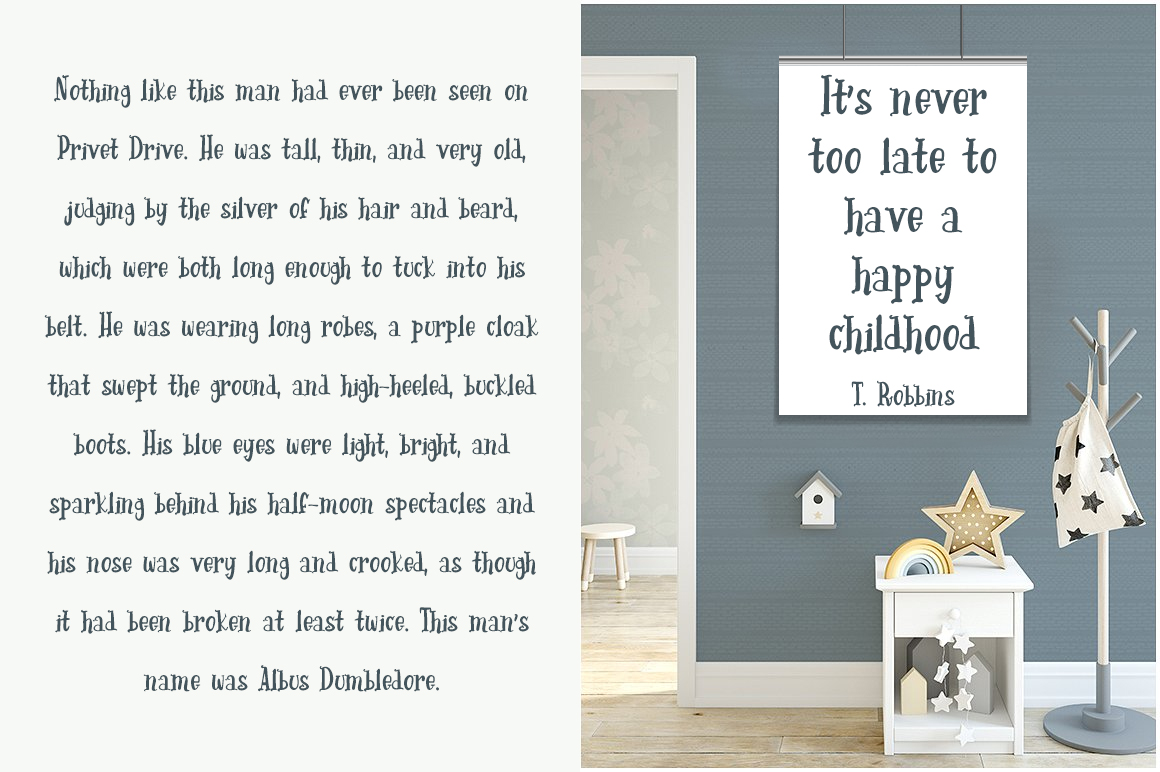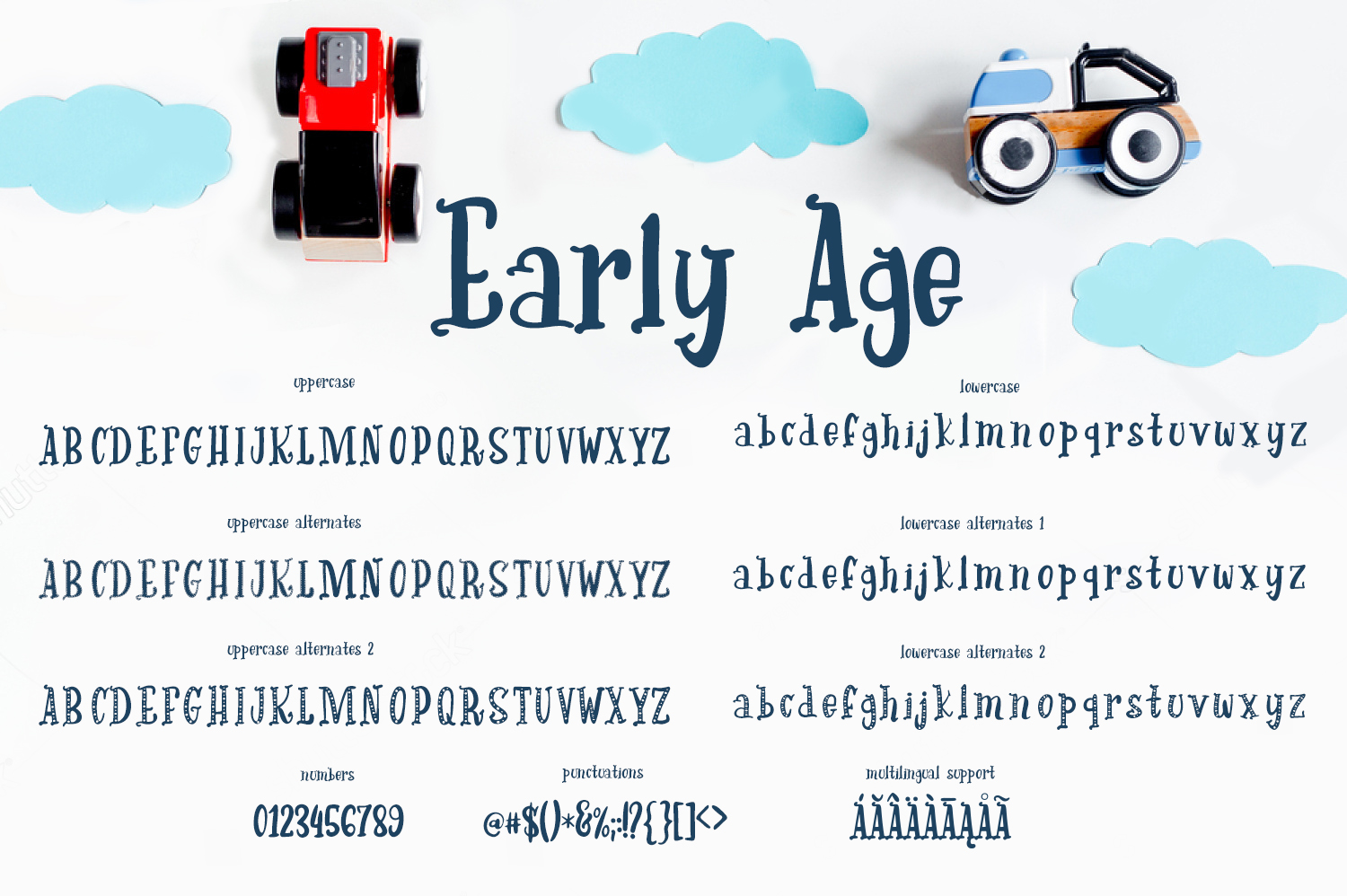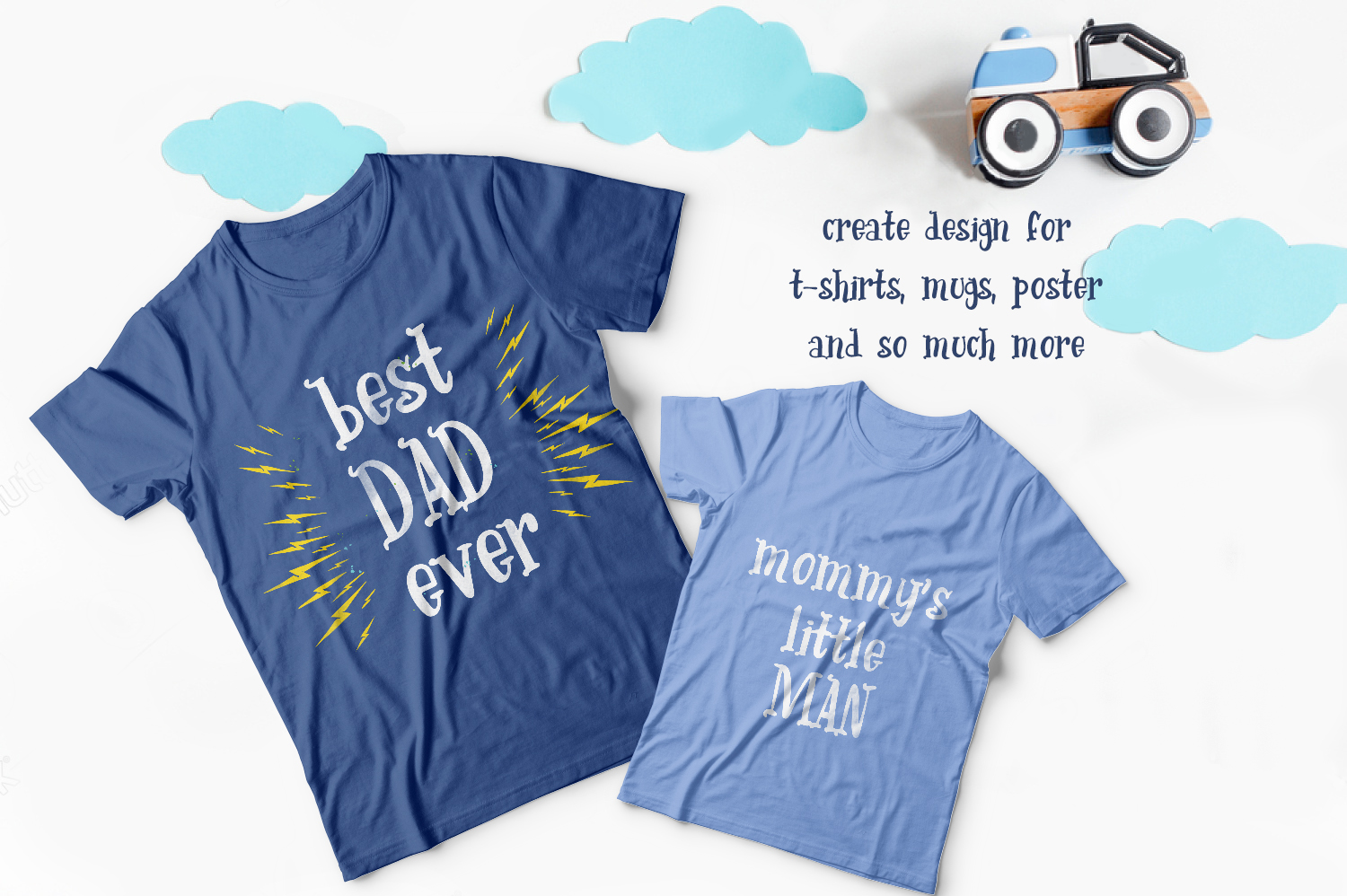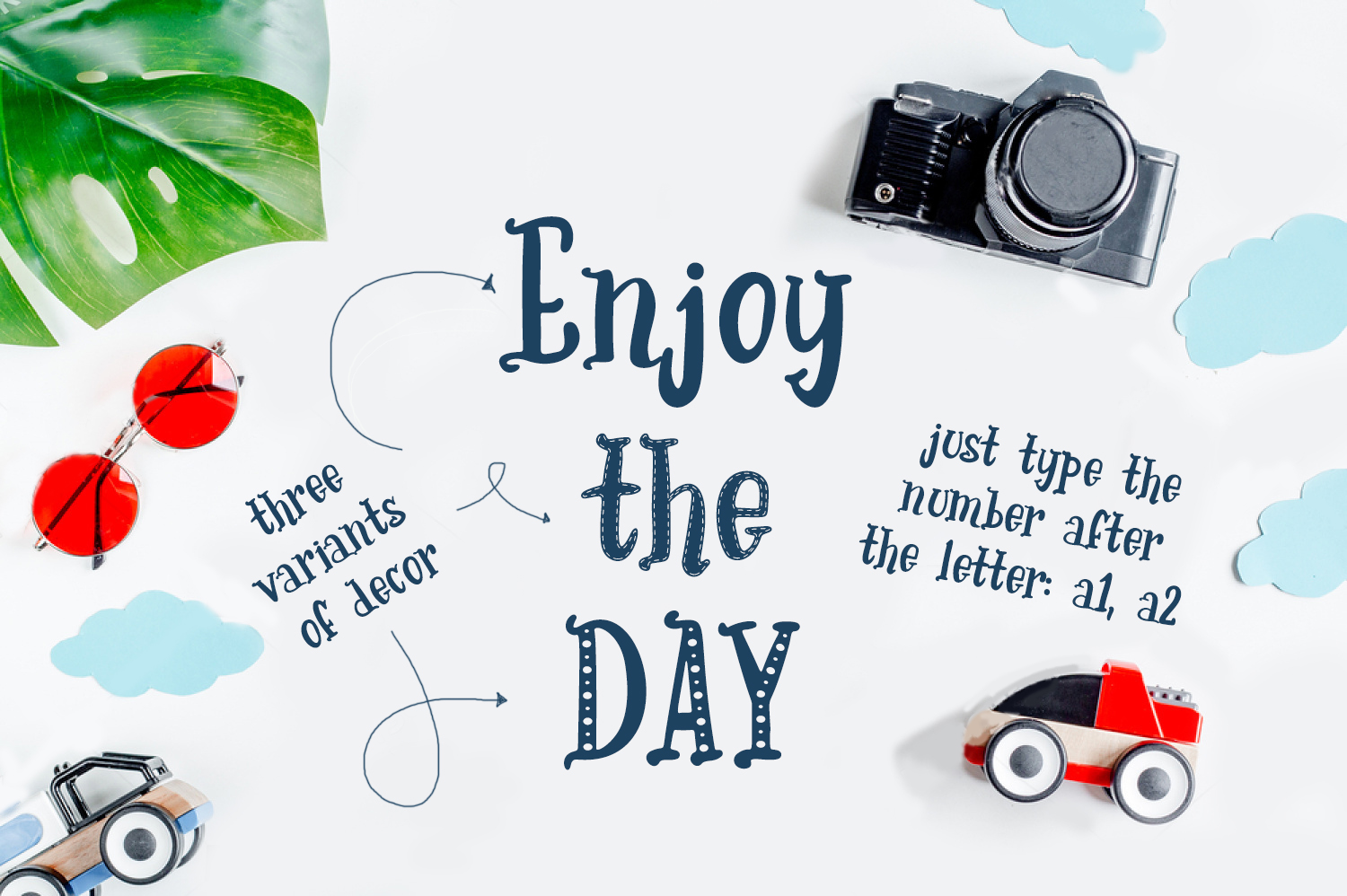
Unlocking the Magic of Early Age Font
Do you remember the excitement of creating your first handmade card for a loved one? The hours spent perfecting the scribble, the delight of watching it come to life, and the pride of giving it to someone special? As designers, we’re always on the lookout for ways to capture that same sense of joy and personality in our work. That’s where the Early Age Font comes in – a fun, handwritten font that’s perfect for adding a lighthearted charm to your designs.
Early Age Font is designed specifically for projects that need a more branded yet warm look, making it a valuable addition to any designer’s toolkit. Whether you’re working on a children’s project, a social media campaign, or a personal branding initiative, this font is sure to bring a smile to your audience’s faces. By incorporating the Early Age Font into your designs, you can create a unique and engaging visual identity that sets you apart from the crowd.
Key Features of Early Age Font
- Unique Characteristics: The font features a unique, hand-drawn design with subtle imperfections, giving it a warm and organic feel.
Early Age Font Review
Overall, I think the Early Age Font has a lot of potential, but it’s not without its flaws. Here’s a breakdown of what I liked and didn’t like:
- ✨ Unique character set: The font has a distinctive, hand-drawn feel that sets it apart from more generic fonts.
- ✨ High level of customization: The font comes with a wide range of OpenType features and stylistic sets, making it easy to tailor to specific design needs.
- ✨ Good legibility: Despite its playful feel, the font is surprisingly easy to read, even at smaller sizes.
- ⚠️ Kerning issues: While the font looks great on its own, I noticed some kerning problems when combining it with other fonts.
Early Age Font is a solid choice for designers looking for a unique, hand-drawn feel. While it has some limitations, its high level of customization and good legibility make it a worthwhile addition to any design toolkit. Just be aware of its language and kerning limitations, and use it judiciously to get the best results.
Early Age Font is ideal for designs that require a vintage or distressed look, such as:
– Retro-themed posters and flyers
– Vintage-style social media graphics
– Distressed text effects for presentations and documents
Early Age Font is a font style characterized by its rounded, childlike appearance. While it can be effective in certain contexts, it may not be the best choice for every design project. Here are three alternatives that designers can consider: